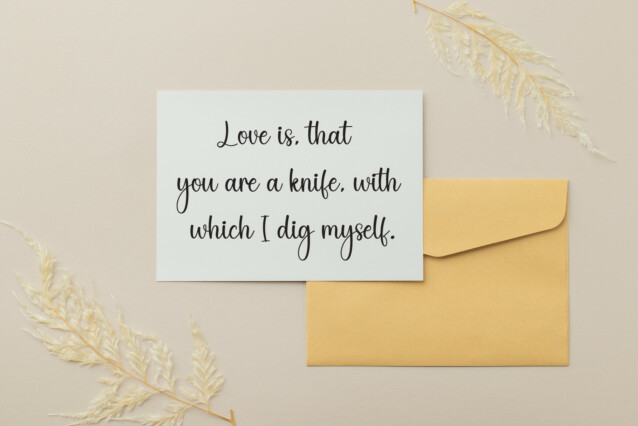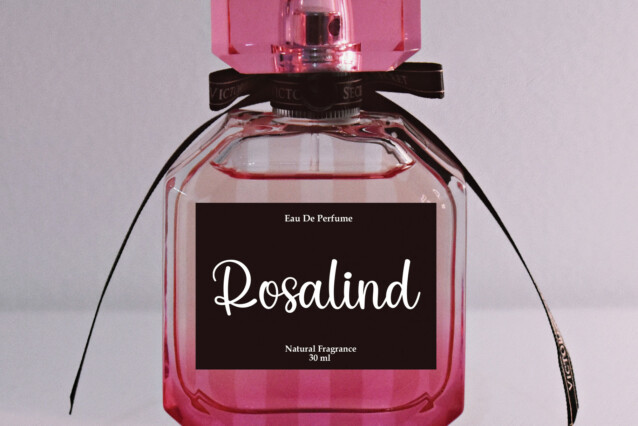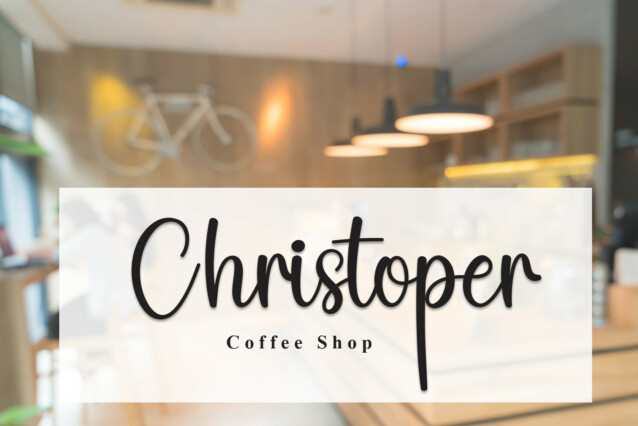
Saturday Script Font
Saturday Script Font is a simple and natural handwriting font. It is great for branding, quotes, logos, t-shirt designs, tote bag designs, cards, banners, social media, and more.